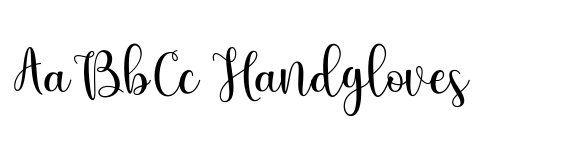
The Glasten
by TM Type
The The Glasten Font Family was designed by Teuku Bustami and published by TM Type. The Glasten contains 1 styles.
The Glasten is a distinct and graceful script font. Fall for its ravishing style and use it to create gorgeous designs. This font is PUA encoded which means you can access all glyphs and swashes with ease!
My name is Teuku Bustami and designed my font with the name TM Type. founded in 2021, TM Type is a font design studio based in Aceh, Indonesia, now I am pursuing my new passion completely from my home studio. I draw letters and I love all forms of creativity. I love creating beautiful things and experimental typography and constantly learning new things.I launched my first font at the end of 2021. Since then I changed my frelance business to Type foundry.